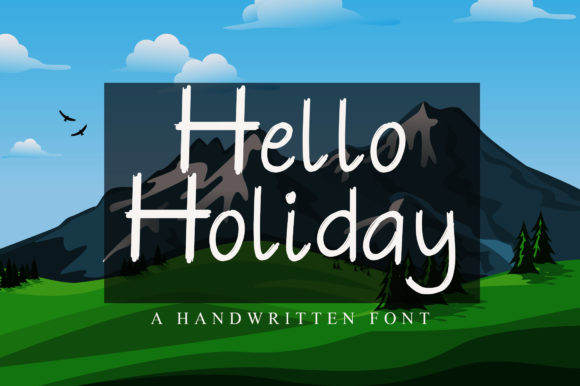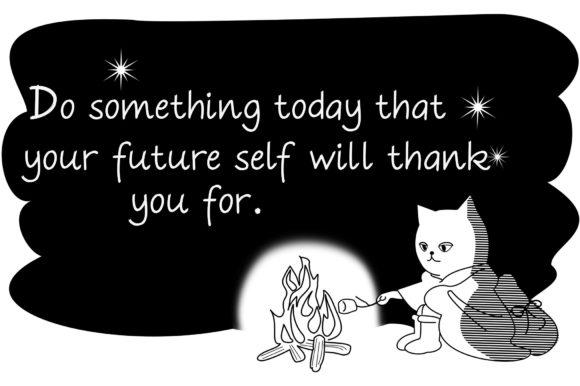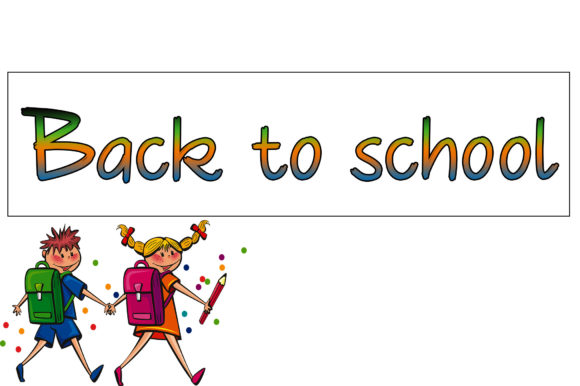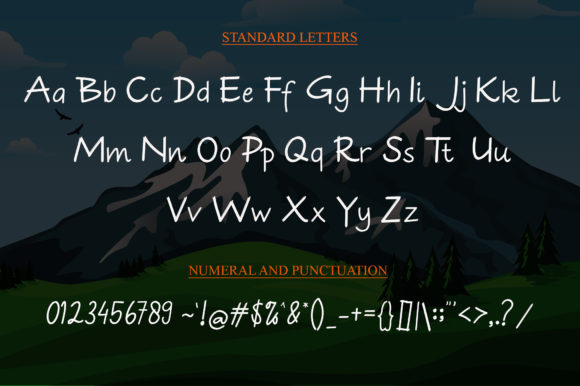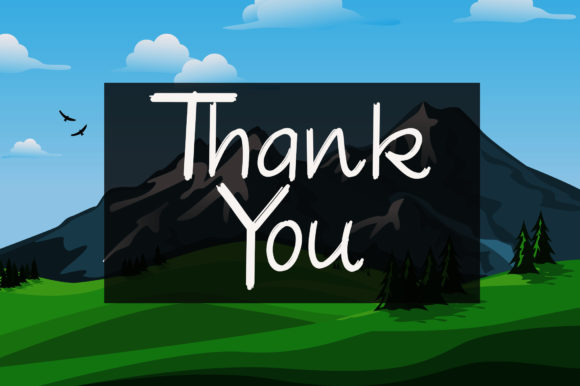
Personal Use Free Hello Holiday 0 200 FacebookTwitterPinterestWhatsApp 1 of 5 About Hello Holiday Font Hello Holiday is a cute and down to earth brushed handwritten font.Not too thin and not too thick, balanced and varied, this font was designed to enhance the beauty of your projects. DOWNLOAD NOW